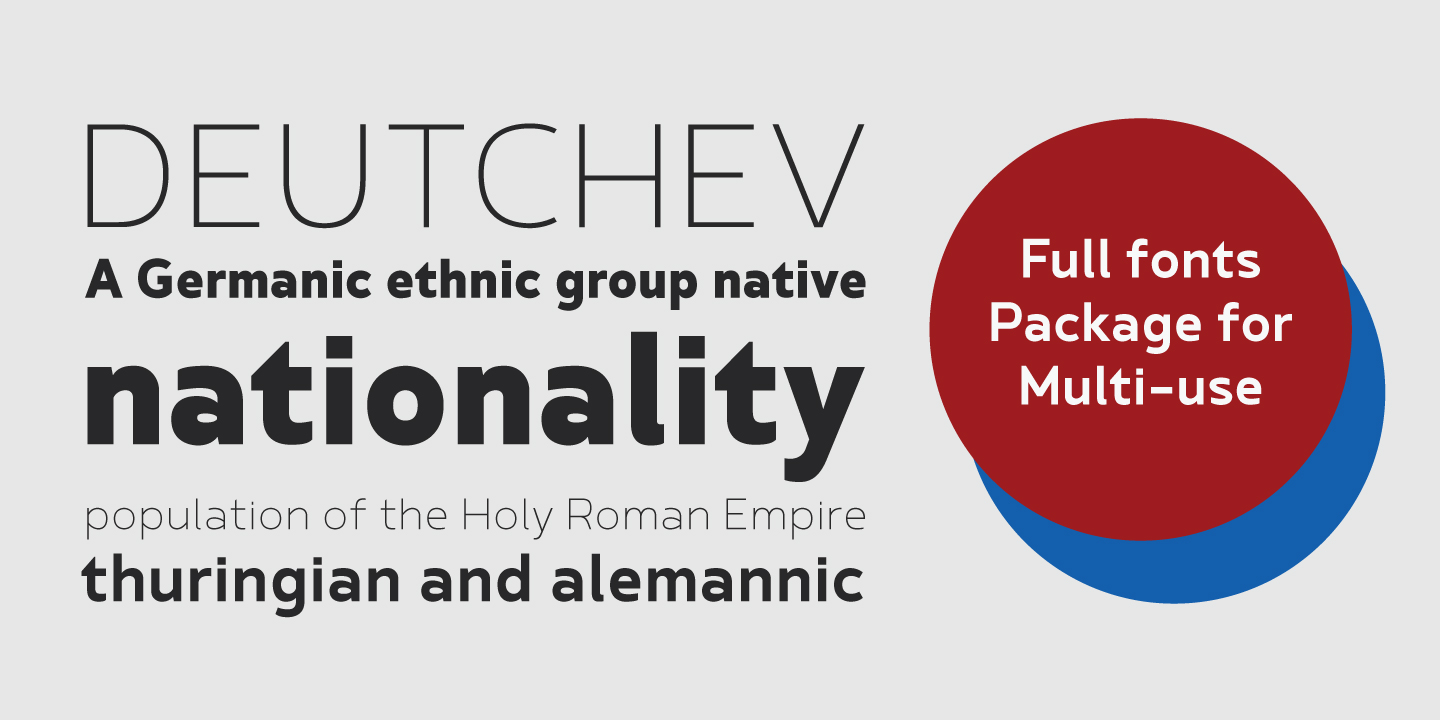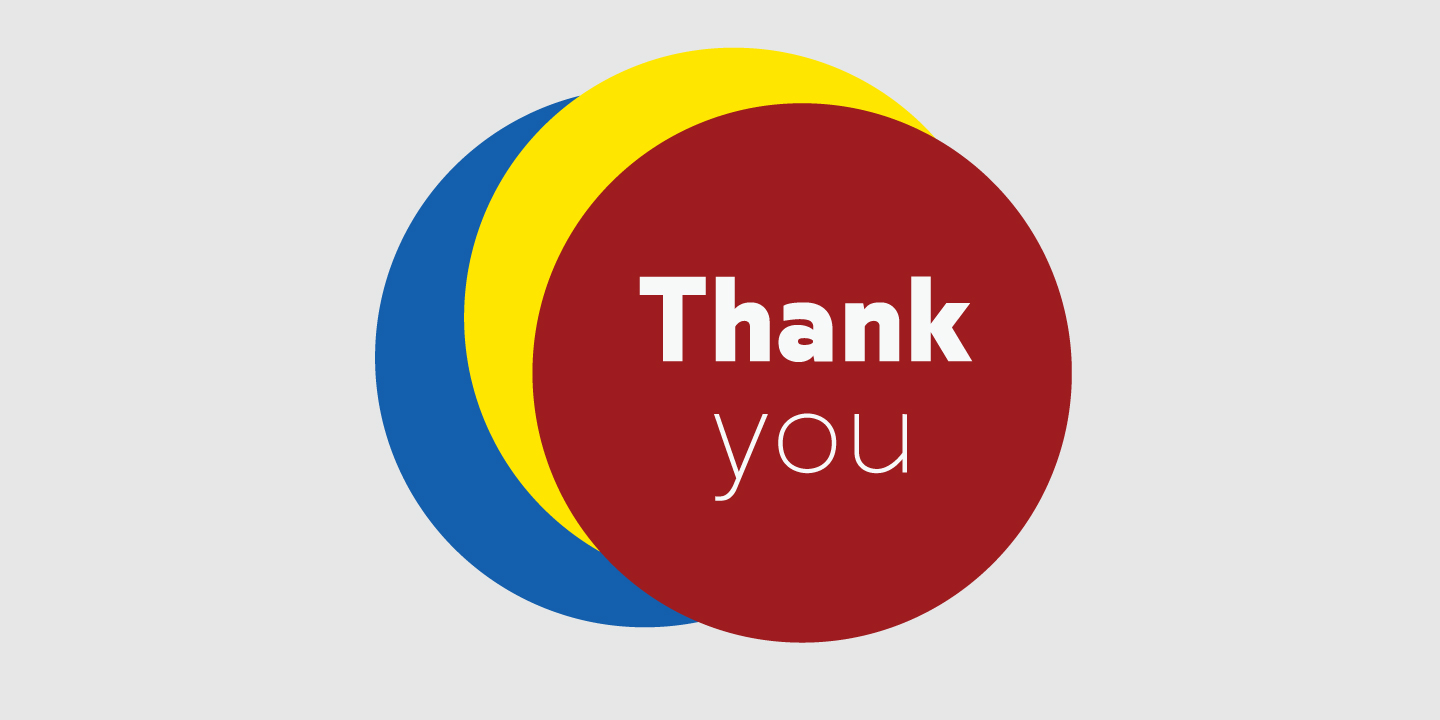
Betm is a geometric sans-serif font family created by Chatnarong Jingsuphatada (a Thai type designer) and published by Typesketchbook. Inspired by clean modern and, somewhat, mild geometric lines, Betm comes in 10 very useful weights along with complementary italics. You’ll love Betm!